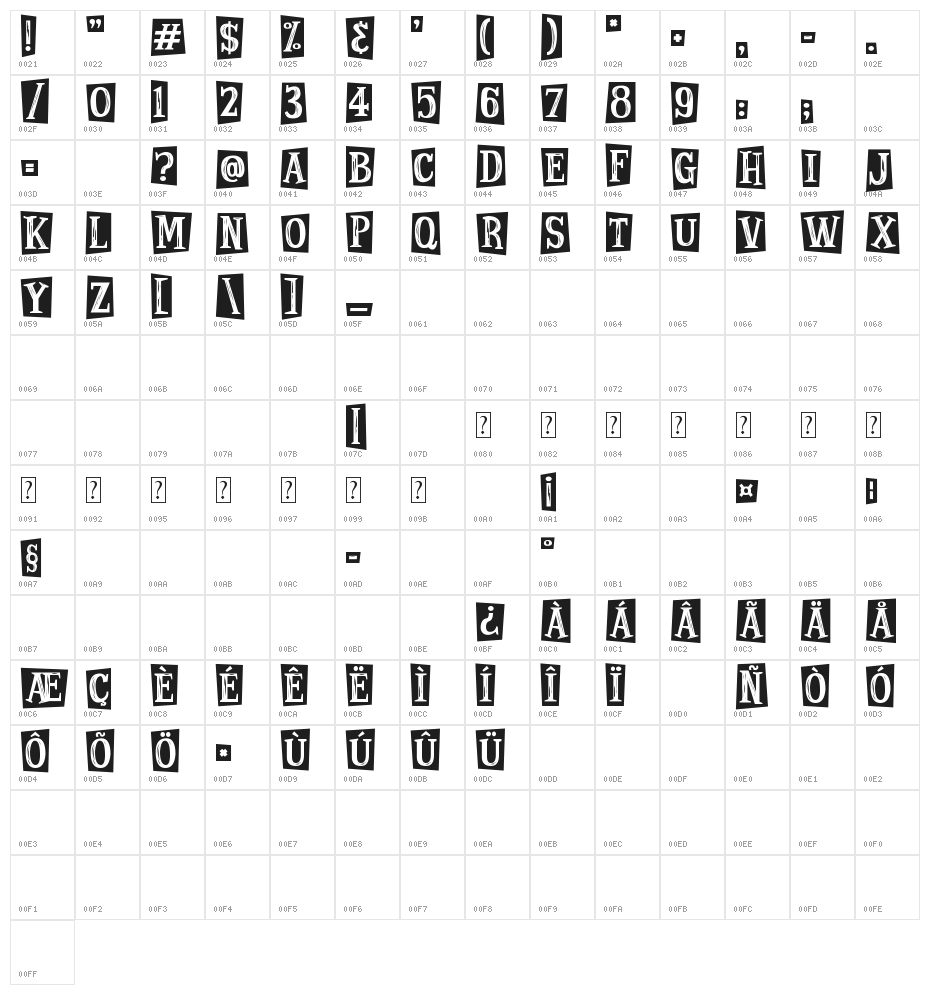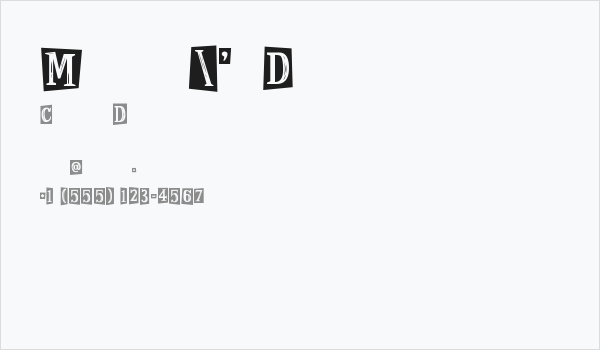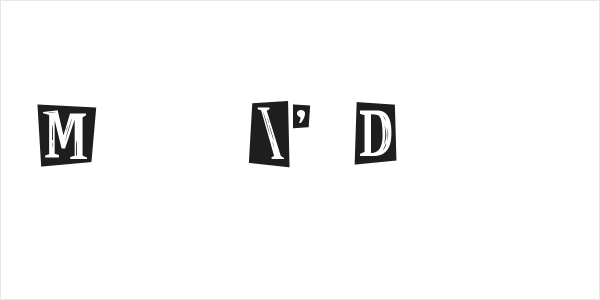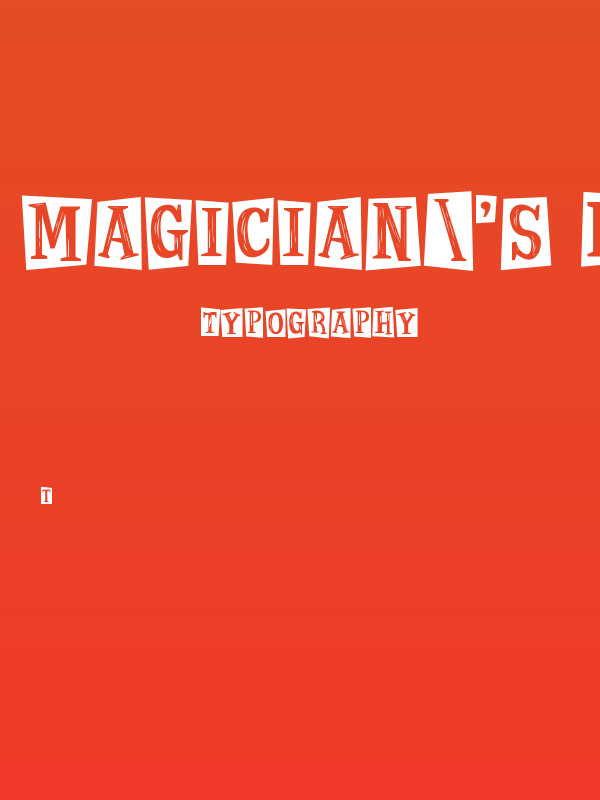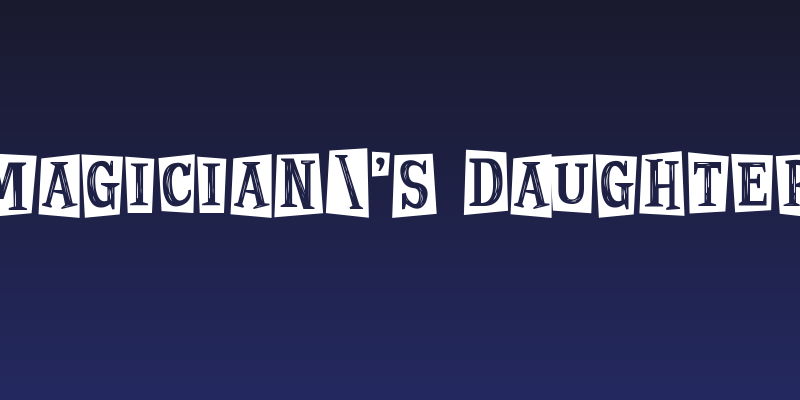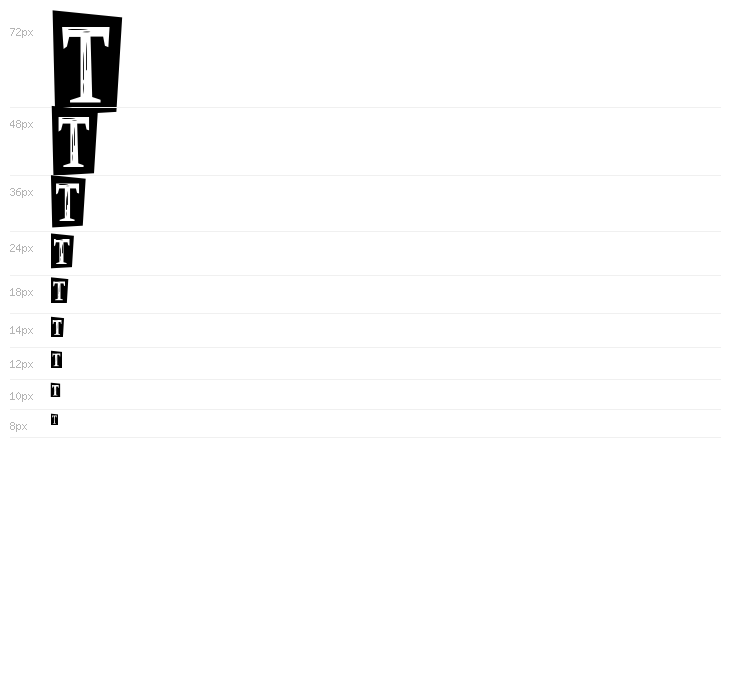
Magician's Daughter Font
Magician's Daughter Description
This font features a whimsical and playful design, characterized by its bold, uneven letterforms that appear as if they are dancing on the page. Each character is enclosed in a tilted black square, adding to its dynamic and theatrical appearance. The strokes of the letters are thick and exhibit a brush-like texture, giving it a hand-drawn feel. The font's unique style makes it stand out, with each letter slightly varying in size and orientation, creating a sense of movement and energy. The numbers and special characters follow the same playful design, ensuring consistency across all glyphs.
Use CaseHeadlines, Posters, Event Invitations
Proposed ProjectsIdeal for children's book covers, playful posters, circus-themed events, or any project requiring a fun and dynamic typeface.